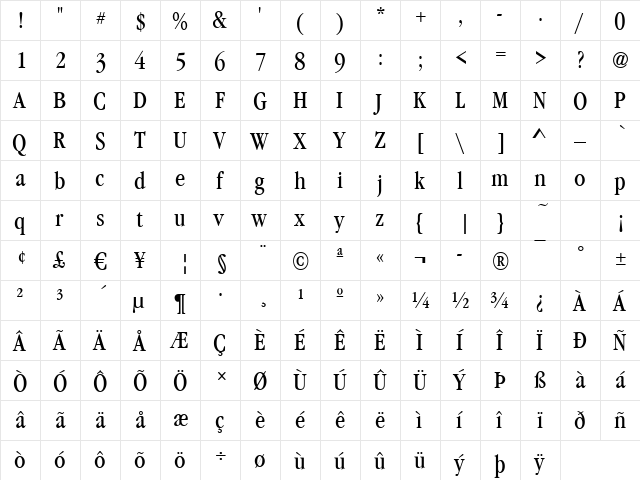
Garfeld-Nova-Cd Regular
Design Context for Garfeld-Nova-Cd Typeface
Garfeld-Nova-Cd is a composed and adaptable typeface that performs quietly and consistently across a wide range of design contexts.